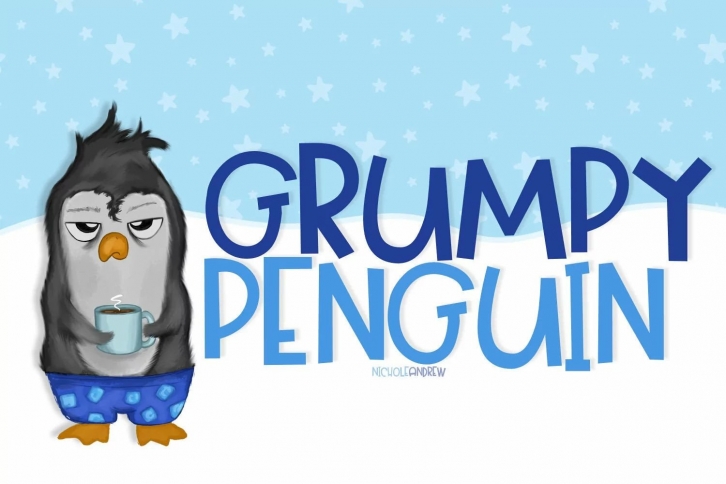
Grumpy Penguin FONT Download
Grumpy Penguin Font Download
Grumpy Penguin is a blocky handwritten font with a unique look and feel. Use Grumpy penguin with your cutting machine to make your next project adorable! Use it for water bottles, stickers, decals and so much more!